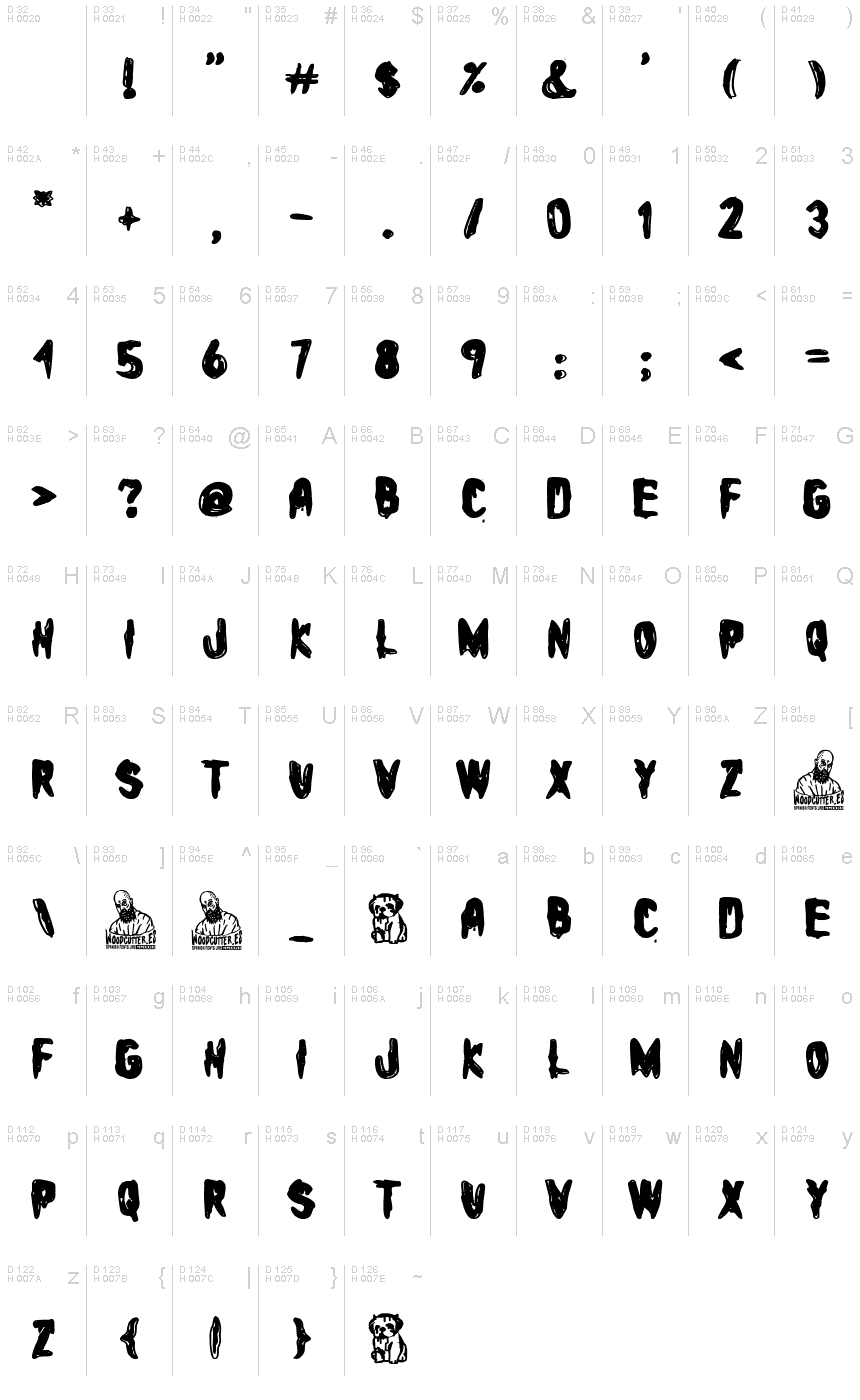
Little Dog of Hell
Meet Little Dog of Hell, the bold and chilling display font created by Woodcutter. With its semi-condensed width and all caps design, this terrifying typeface is perfect for projects that demand attention and send shivers down the spine.
Whether you're working on horror movie posters, haunted house flyers, or bone-chilling book covers, Little Dog of Hell will add an extra layer of fear and intrigue to your designs.
Let this font unleash its dark magic and bring your scary projects to life.